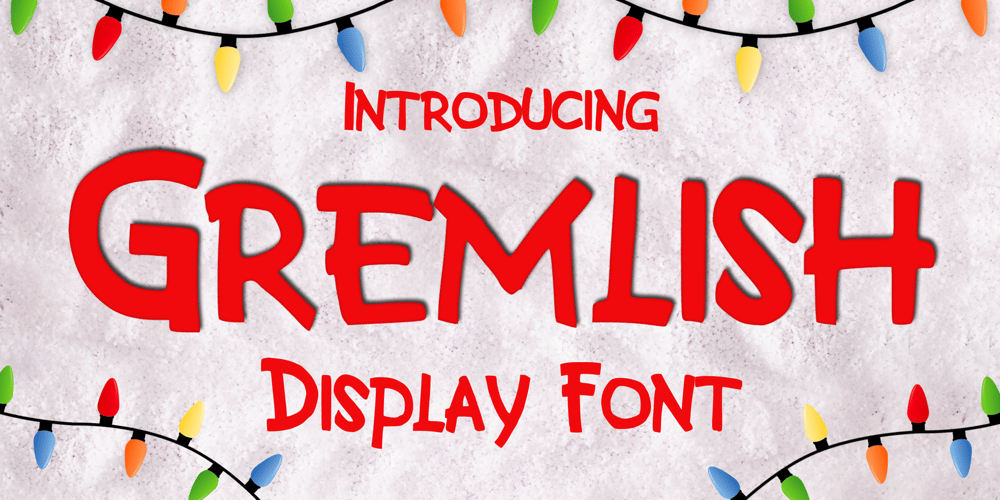
Gremlish
Gremlish font
Gremlish Font Family was designed by Gabriel Valentinus and published by Mvmet. Gremlish contains 1 styles and family package options. Gremlish is a fun cartoon Christmas display font. You can use it for anything ranging from t-shirts, book designs, and greeting cards to stickers and posters, or anything that needs a casual touch. Fall in love with its incredibly versatile style, and use it to create lovely designs!